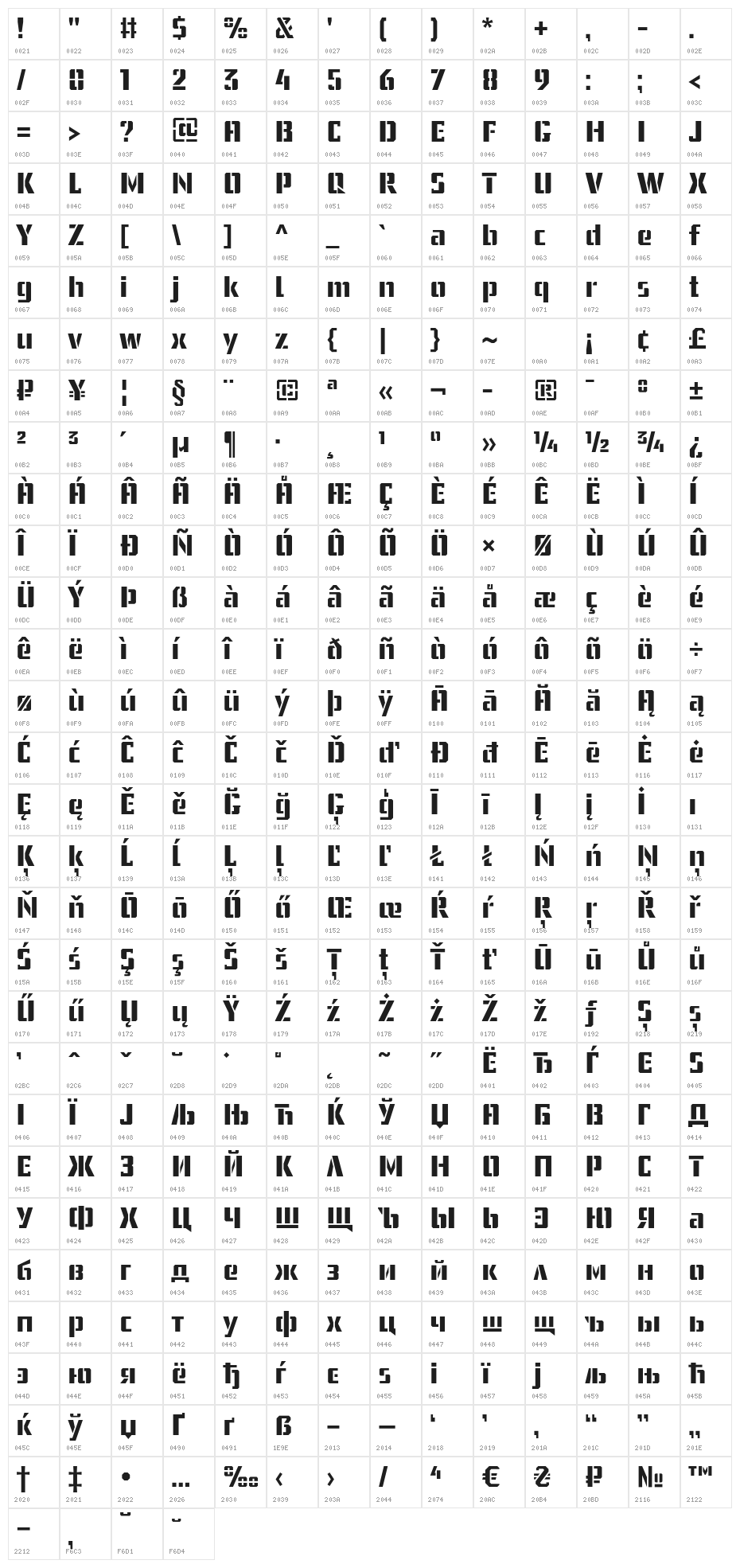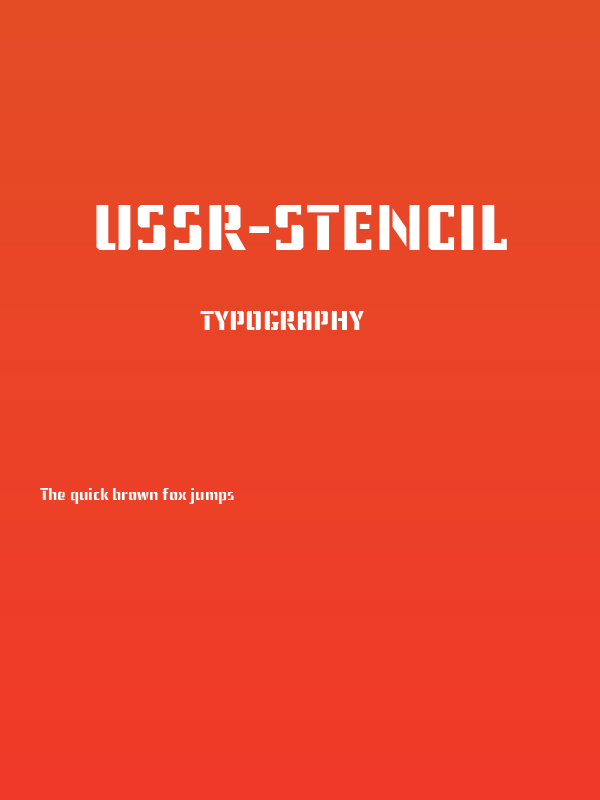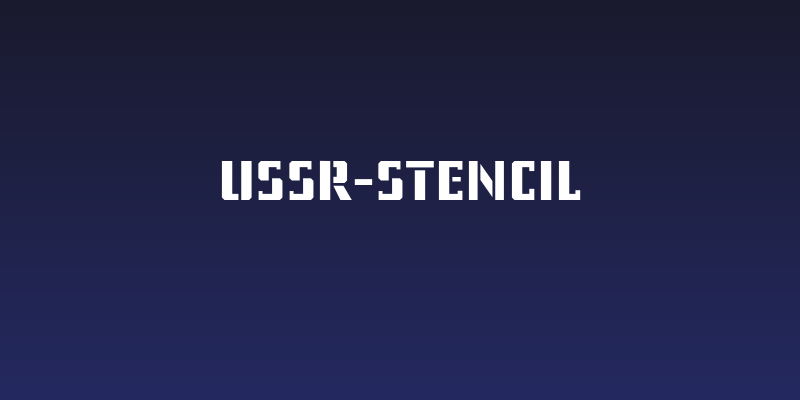
USSR-STENCIL Font
This font features a bold, stencil-like design with strong geometric shapes and clear cutouts, reminiscent of industrial and military aesthetics. The uppercase letters are particularly striking, with uniform height and width, while the lowercase letters maintain a consistent style that complements the uppercase. The numbers and special characters follow the same bold, stencil pattern, ensuring a cohesive look across all characters. The font's design is both functional and decorative, making it suitable for impactful visual communication.
Overall StyleIndustrial, Military
Proposed ProjectsIdeal for military-themed designs, industrial branding, posters, and signage that require a strong, authoritative presence.